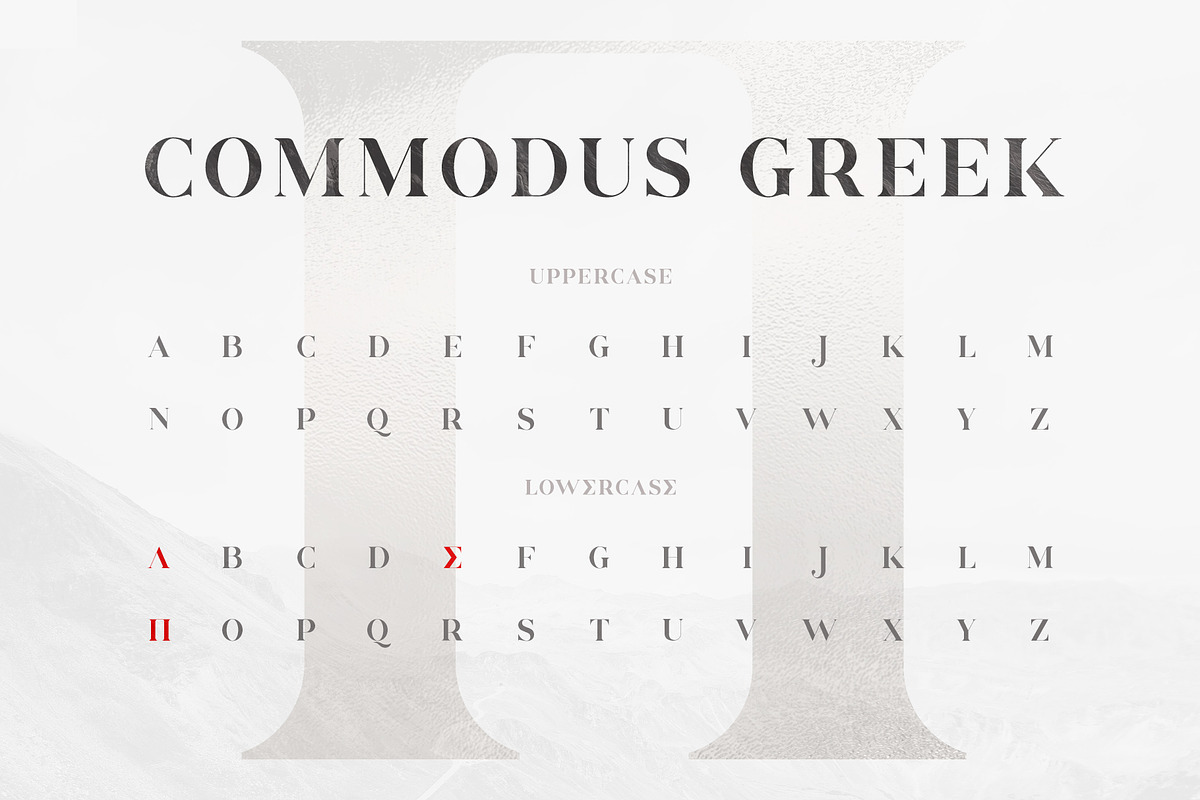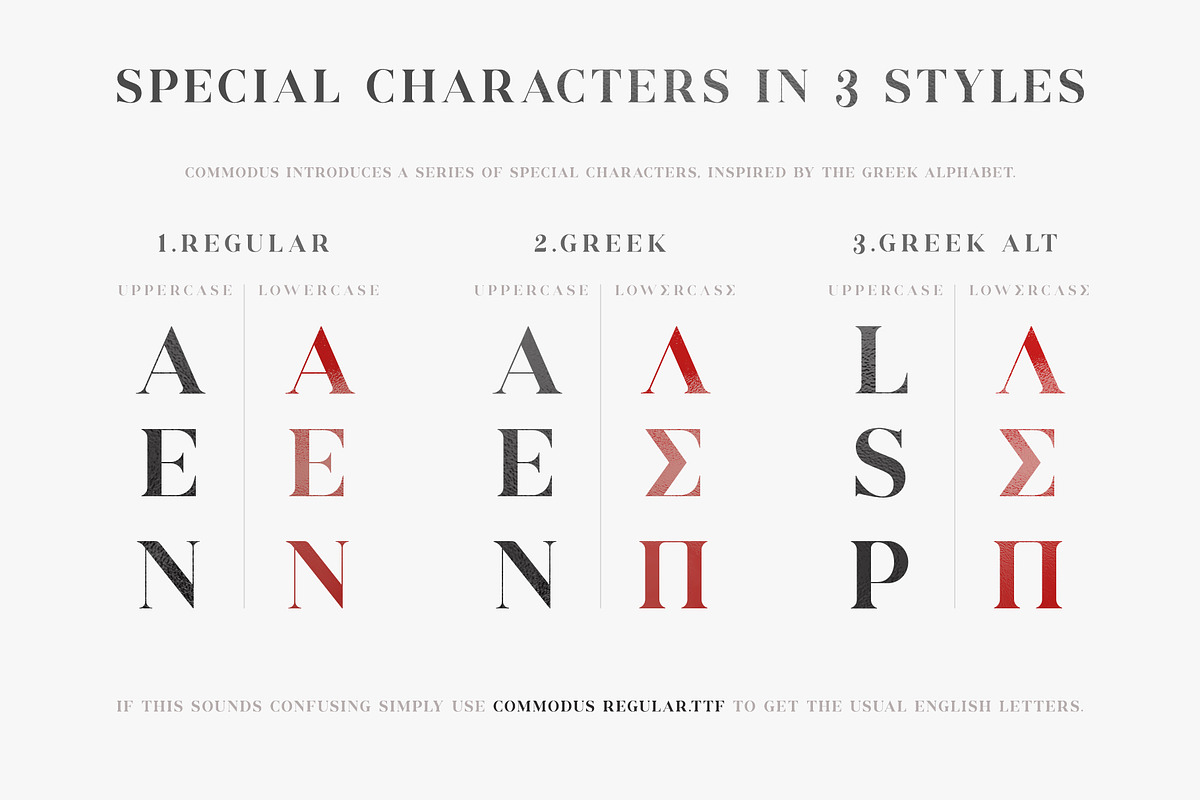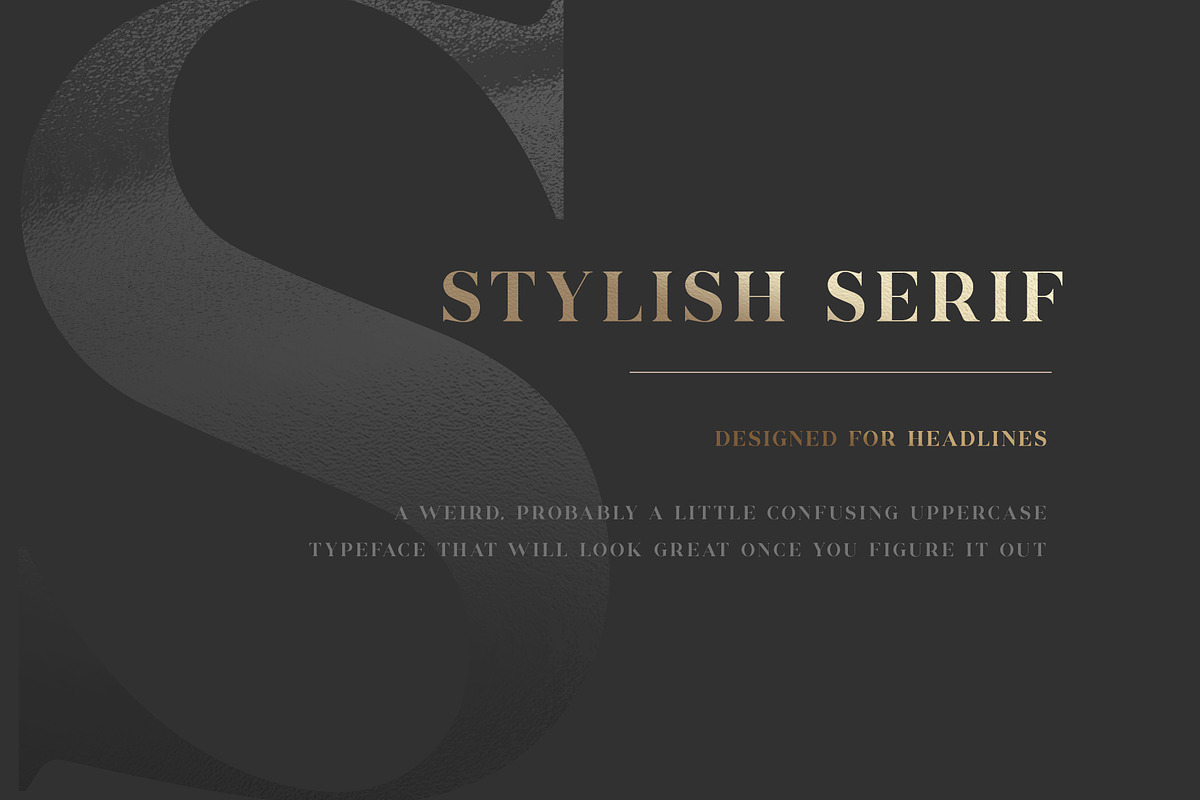
Commodus Font
Commodus is a new elegant all caps serif typeface with letters inspired from the greek alphabet. It is perfect for branding, logos, invitation, watermark and so much more.
• Uppercase letters only
• Special Characters for lowercase letters
• 3 Styles (Regular, Greek, Greek Alt)
• Oldstyle figures (uneven baseline for numbers)
• Multilingual Support